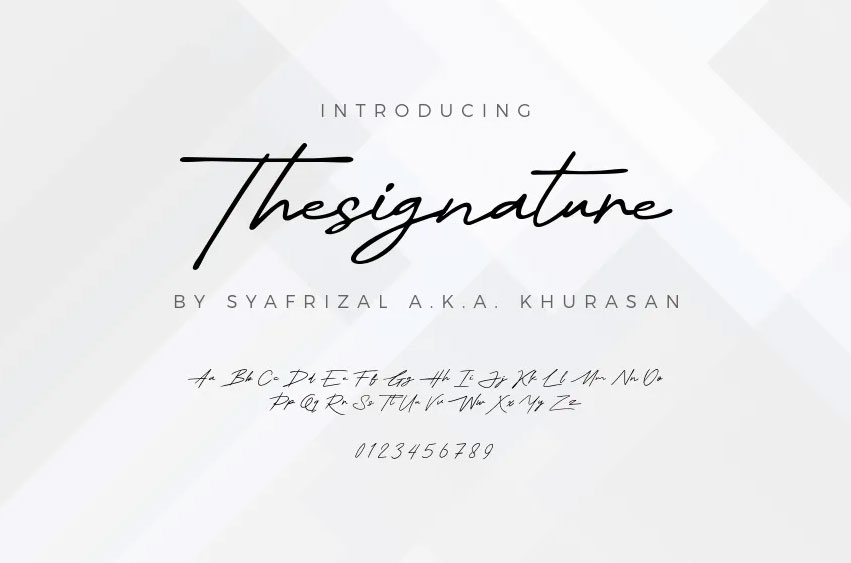
Thesignature Font
Thesignature Font is a sophisticated signature font that conveys a natural flow. This elegant font is ideal for various creative design projects such as posters, logos, magazines, book covers, banners, and more.
The author of this unique handwritten font is Syafrizal, also known as Khurasan. With its distinctive style, Thesignature Font is sure to add a touch of personalization and creativity to any design project.